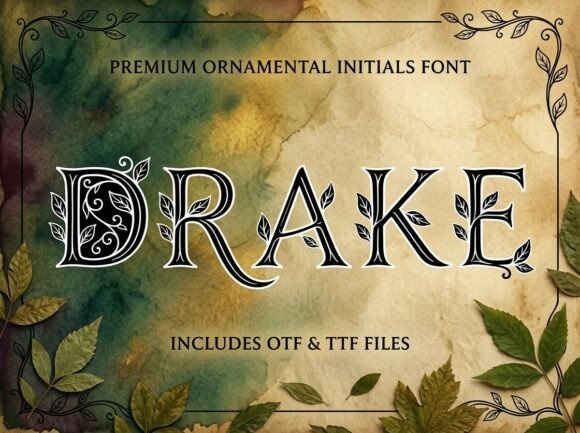
Breathe Life into Your Designs with Drake Font
In the world of typography, few fonts capture the essence of elegance and sophistication as beautifully as Drake Font. This exquisite botanical display typeface is designed to bring a touch of luxury and refinement to any design project. With its bold, inline-structured letterforms, rhythmic roseleaf flourishes, and hand-drawn vine accents, Drake Font is the perfect choice for designers and crafters looking to add a touch of whimsy and romance to their work.
The Inspiration Behind Drake Font
Drake Font is inspired by the beauty of nature, with a focus on capturing the “lush-and-legendary” soul of the botanical world. The font’s creator drew inspiration from the intricate details of rose leaves and vines, masterfully integrating them into the letterforms to create a truly unique and eye-catching design. The result is a font that exudes a sense of romance and sophistication, perfect for designs that require a touch of elegance.
Key Features of Drake Font
So, what sets Drake Font apart from other typefaces? Here are some of its key features:
- Bold, inline-structured letterforms: Drake Font features bold, inline-structured letterforms that are both modern and sophisticated.
- Rhythmic roseleaf flourishes: The font’s rhythmic roseleaf flourishes add a touch of whimsy and romance to any design.
- Hand-drawn vine accents: The hand-drawn vine accents that sprout from every character add a level of detail and sophistication to the font.
- Dense ornamental weight: Drake Font has a dense ornamental weight that makes it perfect for designs that require a bold, eye-catching font.
Use Cases for Drake Font
Drake Font is a versatile typeface that can be used in a variety of design projects. Here are some of the most popular use cases:
- Independent estate branding: Drake Font is perfect for independent estate branding, adding a touch of luxury and sophistication to any design.
- High-end garden center identities: The font’s botanical inspiration makes it a great choice for high-end garden center identities.
- Fantasy novel titles: Drake Font’s whimsical and romantic personality makes it perfect for fantasy novel titles.
- High-impact social media headers: The font’s bold, eye-catching design makes it perfect for high-impact social media headers.
Why Choose Drake Font?
So, why choose Drake Font for your design projects? Here are just a few reasons:
- Unique and eye-catching design: Drake Font’s unique design makes it stand out from other typefaces.
- Versatile: The font can be used in a variety of design projects, from branding and advertising to packaging and editorial design.
- Elegant and sophisticated: Drake Font exudes a sense of elegance and sophistication, making it perfect for designs that require a touch of luxury.
In conclusion, Drake Font is a beautiful and versatile typeface that can add a touch of elegance and sophistication to any design project. With its bold, inline-structured letterforms, rhythmic roseleaf flourishes, and hand-drawn vine accents, Drake Font is the perfect choice for designers and crafters looking to create stunning designs. Whether you’re working on independent estate branding, high-end garden center identities, fantasy novel titles, or high-impact social media headers, Drake Font is sure to breathe life into your designs.
Get Ready to Elevate Your Designs with Drake Font